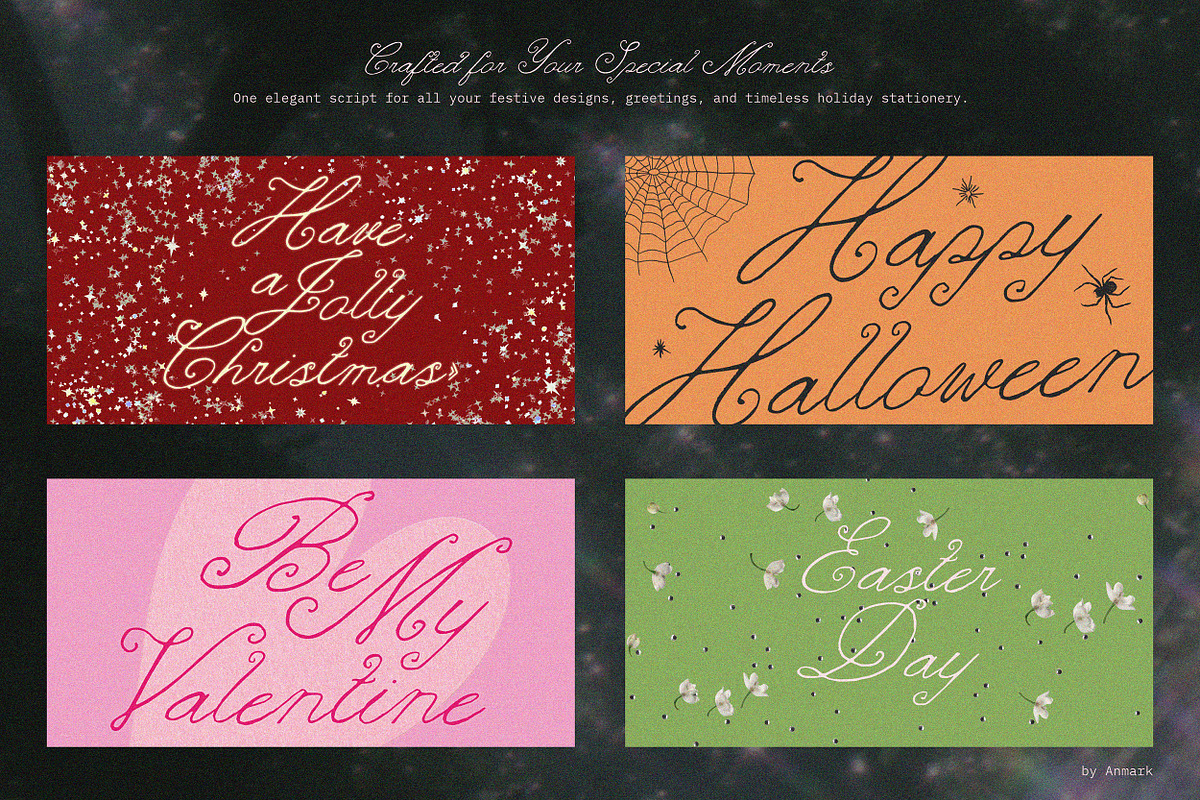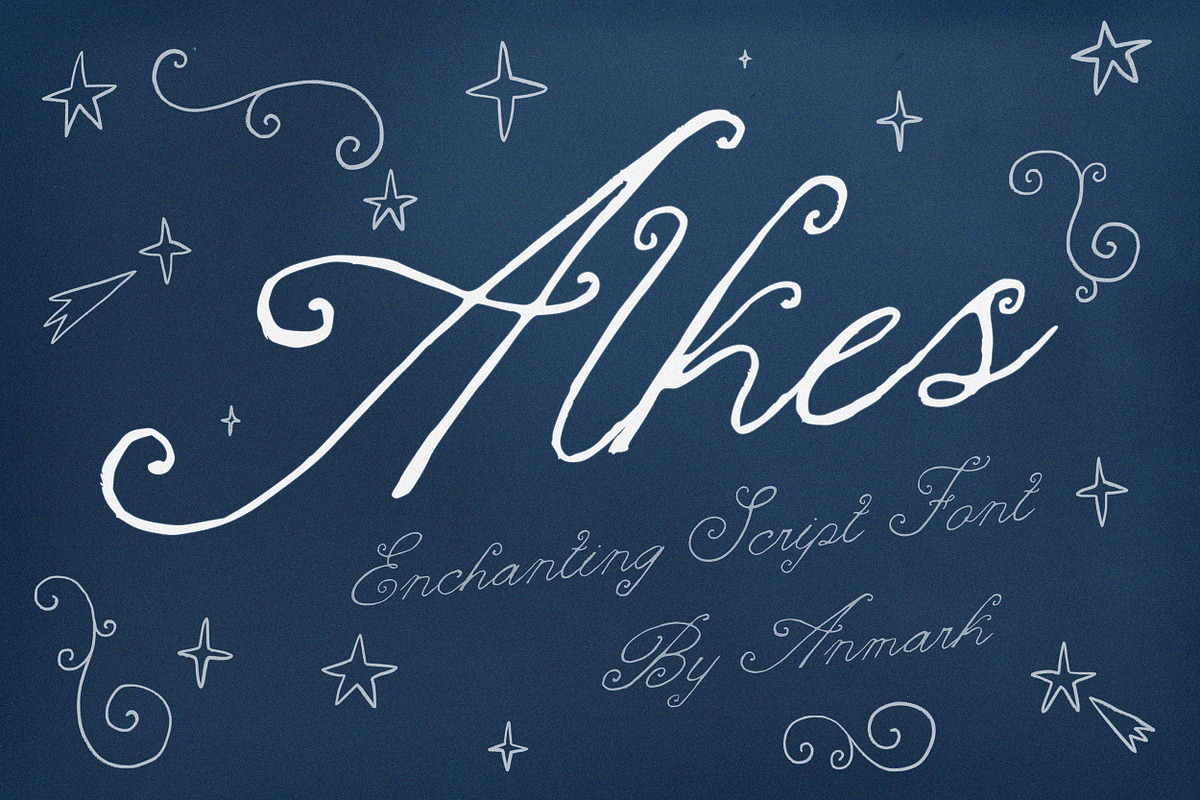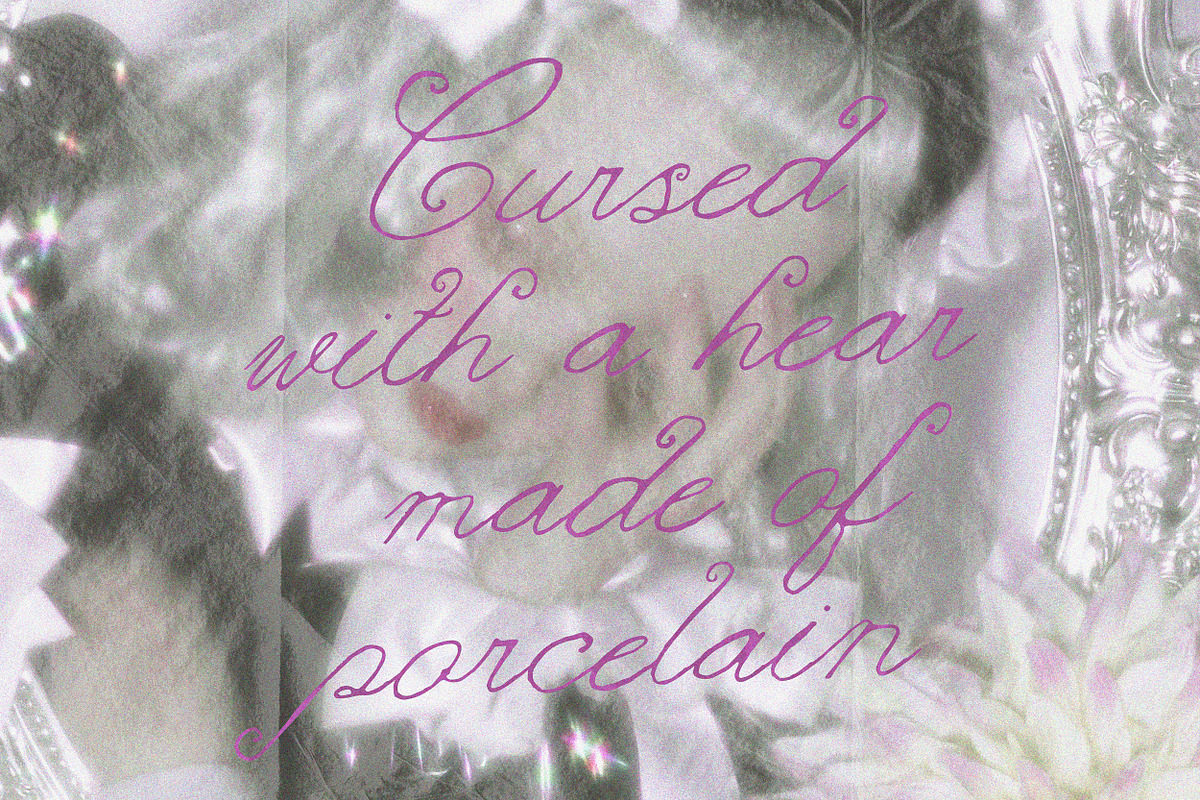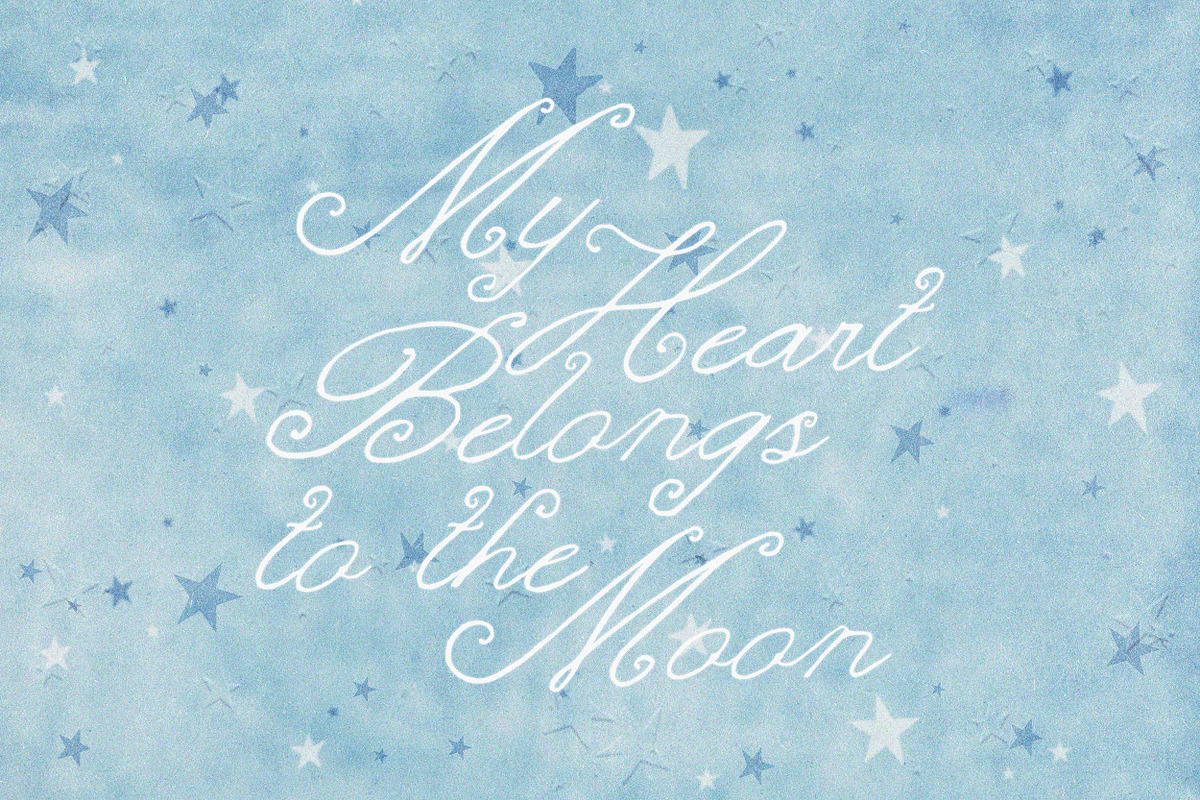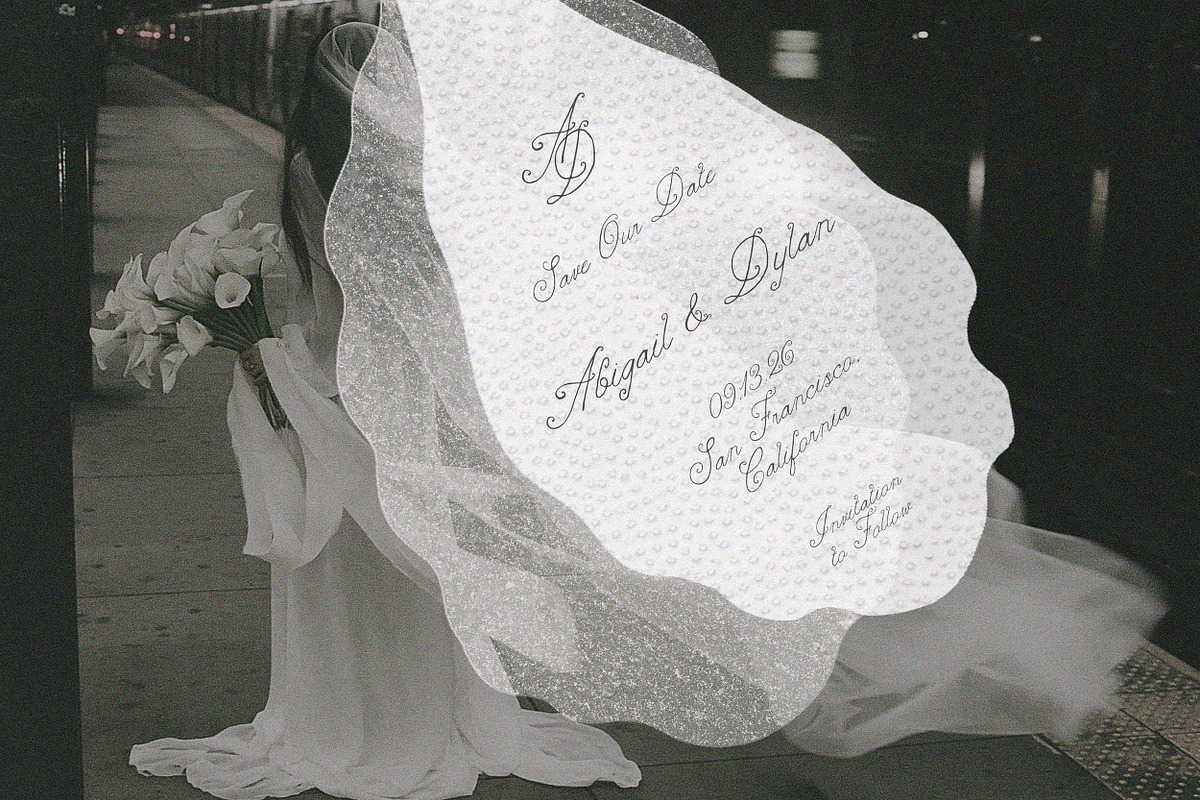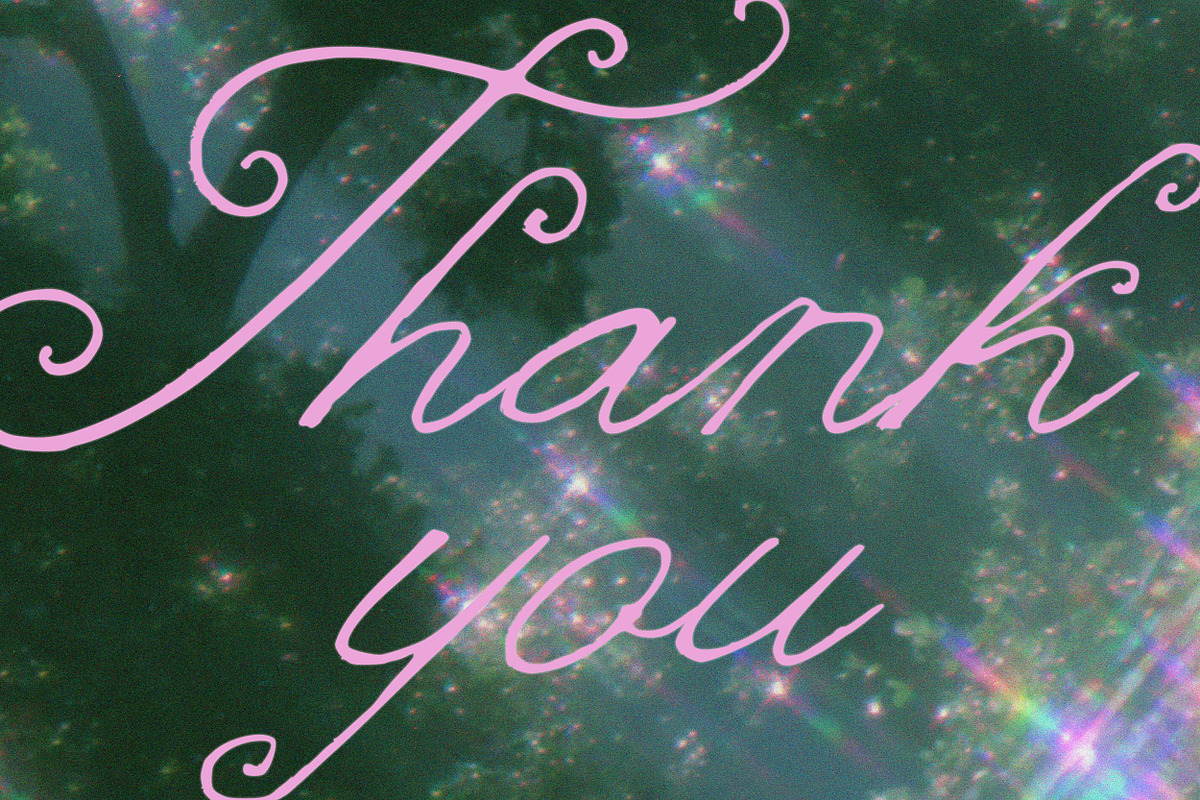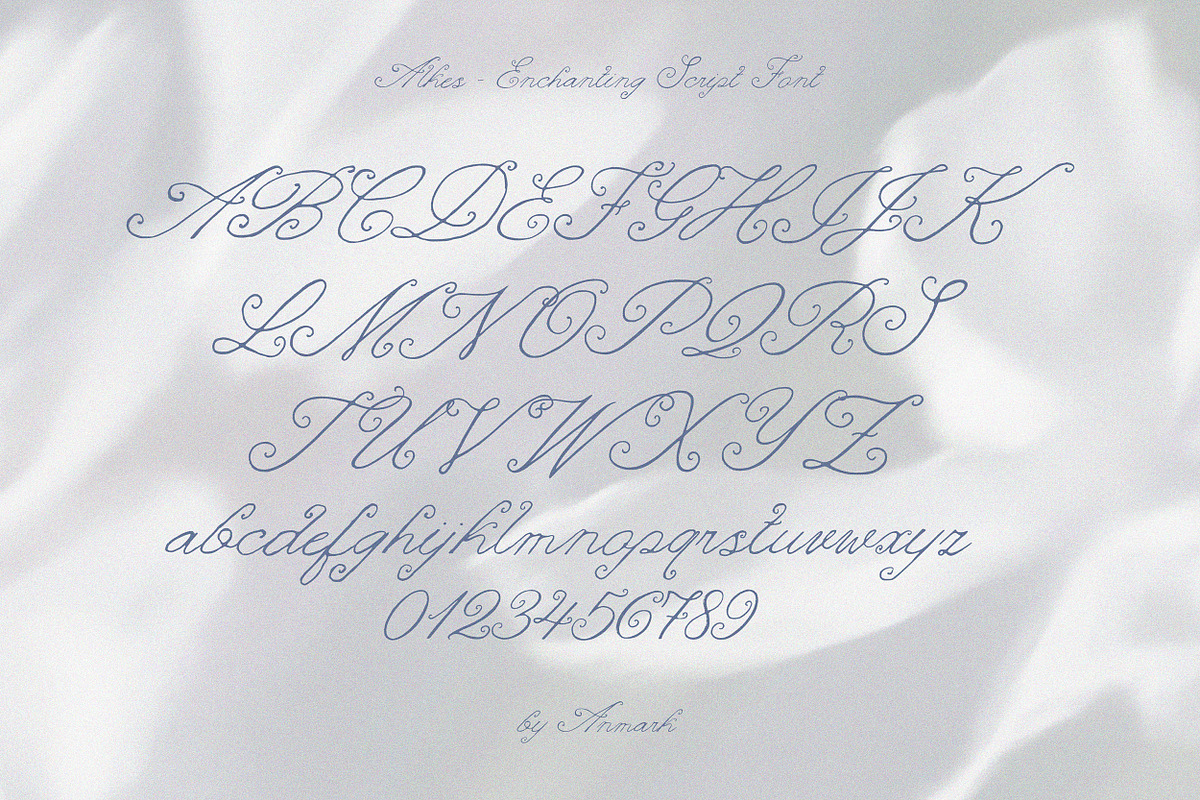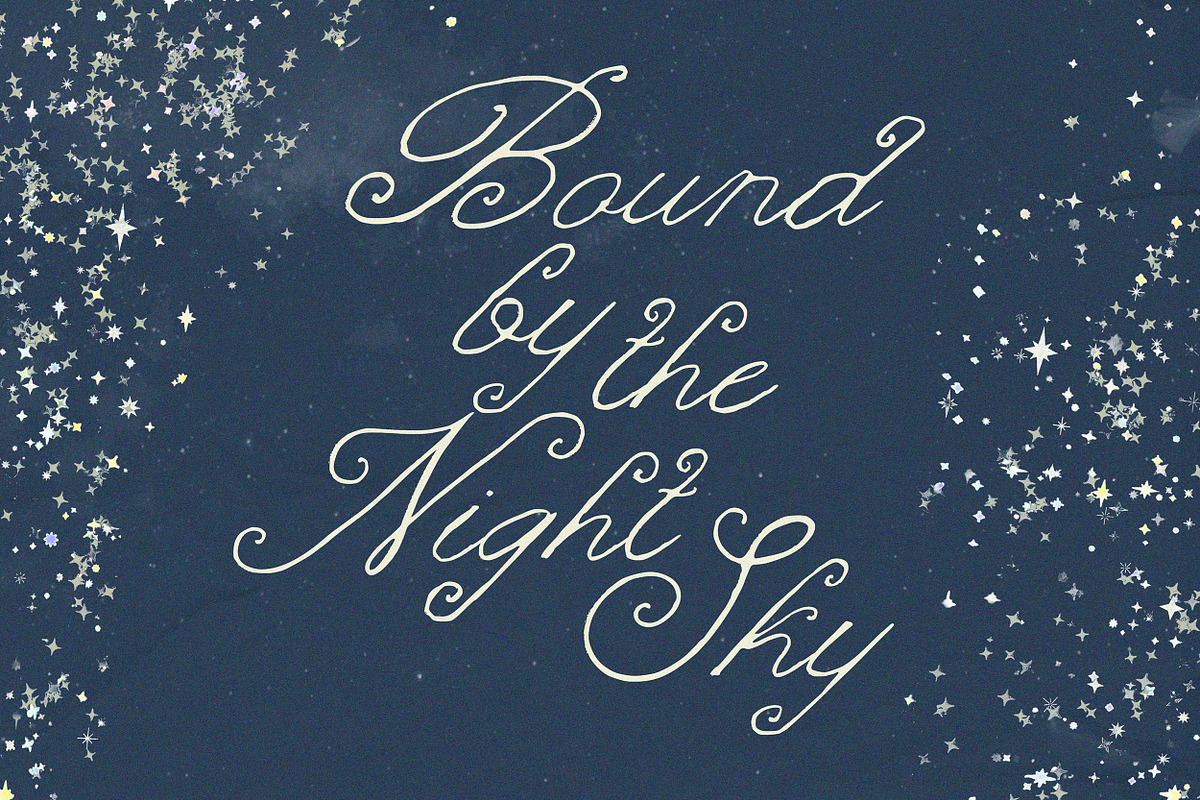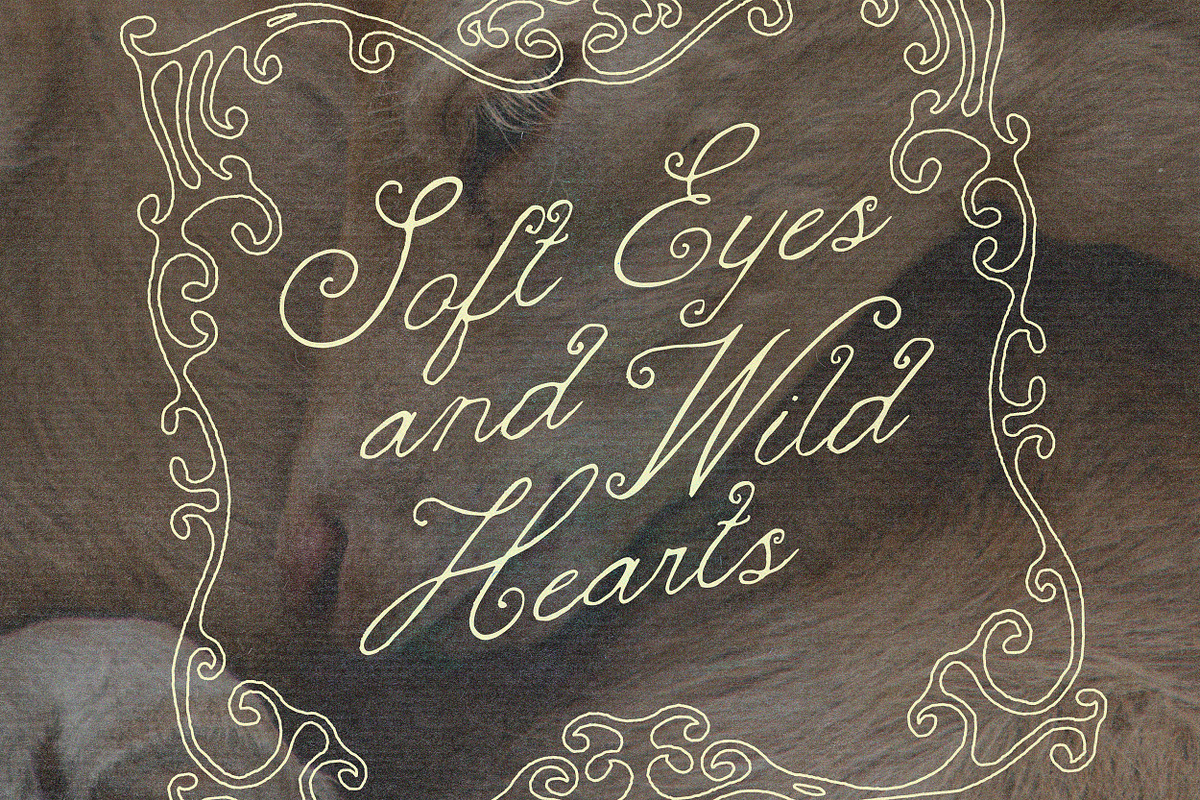
Alkes Romantic Whimsical Script Font
Alkes is an elegant whimsical script font inspired by the star of the same name. Flowing curves, ornate swashes, and handcrafted letterforms echo the beauty of antique wrought iron details and the quiet magic of a starlit sky. The result is a script that feels graceful, artistic, and full of personality while remaining highly readable.
Its decorative character makes Alkes a versatile choice for both romantic and seasonal designs. It works beautifully for wedding invitations, save the dates, logos, monograms, branding, packaging, greeting cards, beauty and fashion projects, book covers, editorial layouts, social media, and handmade products.
From elegant wedding stationery to Christmas cards, Halloween packaging, Valentine's Day gifts, Easter collections, and boutique branding, Alkes adapts effortlessly to every occasion. Whether you're creating something timeless, festive, or magical, this font brings warmth, charm, and distinctive style to every design.